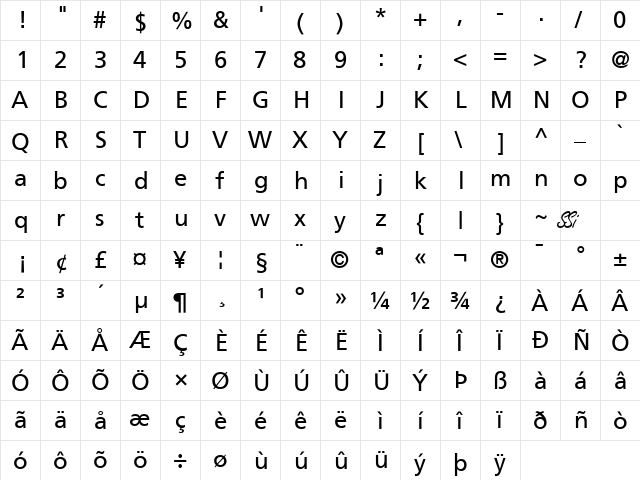
Palma SSi Regular
Design Context for Palma SSi Typeface
Palma SSi offers clean, dependable letterforms without strong stylistic allegiance, making it a practical choice for designers who need flexibility.